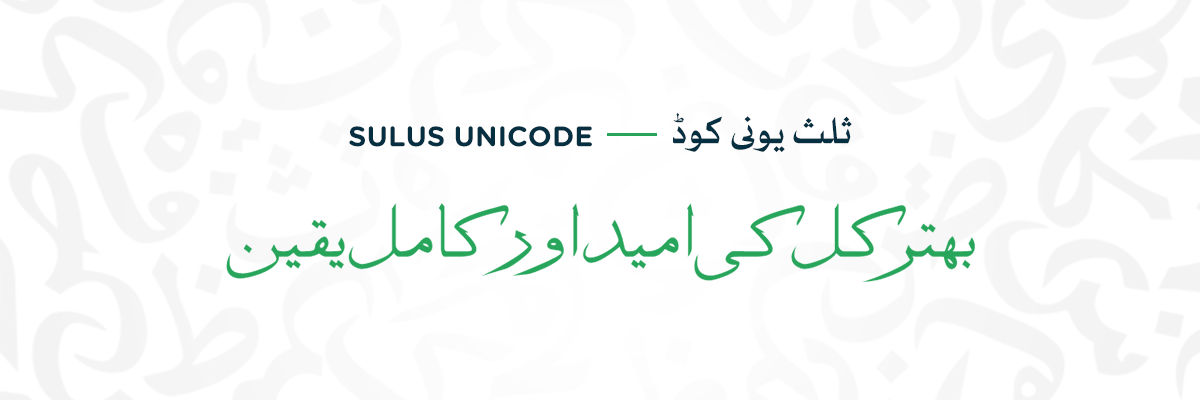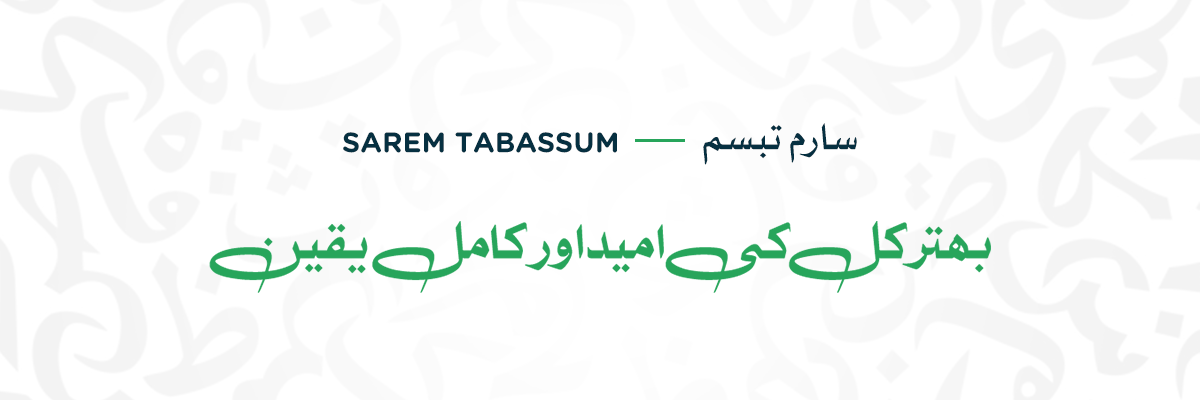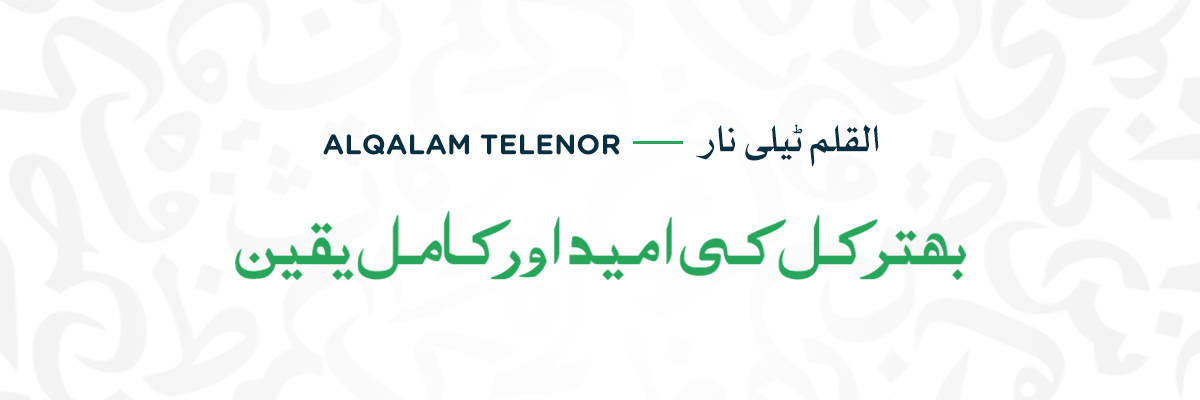
Do you want to improve the readability of your poetry writings and enhance the overall appearance by adding a cultural touch? No worries, we have got you covered. Classical Urdu fonts serve a great part to engage your readers with your writings. The style and size of a font is very important to consider before publishing your poetry writings. Furthermore, the ideal Urdu fonts for poetry differ based on your book’s genre as well as size. Usually, sans-serif fonts with point sizes of ten to twelve are best for majority of the poetry books. Poetry books look more professional and cleaner with a moderate-sized fonts as they involve less writing on every page. Likewise, you can consider any font that you think goes best with the overall essence of your poetry. Also read about our collection of 18 Elegant Urdu Fonts to design sophisticated invitations, posts, documents, and more.
While writing your poetry books, make sure to use those fonts that maintain the elegance of Urdu script. Selection of right fonts leave a huge impact on readers and also decide whether they will engage with your writings or not. To make it easy for you, we have handpicked some classical Urdu fonts as given below so that you can choose one according to your interests and requirements.
| No. | Font Name | Key Features |
|---|---|---|
| 1 | 2 Narenj | Thin font, consistent thickness |
| 2 | Rouqa Unicode | Curved, less angular letterforms, suitable for short texts |
| 3 | Anwar | Thick, symmetrical design, clean |
| 4 | Noorehira | Subtle corners, inconsistent spacing, wide appearance |
| 5 | PDMS_PencilNafees | Design resembling pencil writing, smooth edges and corners |
| 6 | Aldhabi | Flowing cursive style for larger display sizes |
| 7 | A Gem Azad | Irregular font, varying letter spacing |
| 8 | AA Sameer Sagar Nastaleeq | Long curvy edges and contrasting strokes |
| 9 | Sulus Unicode | Graceful strokes for high readability |
| 10 | Sarem Tabassum | Widely spaced letters with sharp edges, curly terminals |
| 11 | AlQalam Tehreeri | Variable stroke thickness, clear letterforms |
| 12 | AlQalam Telenor | Modern, wide, regular style |
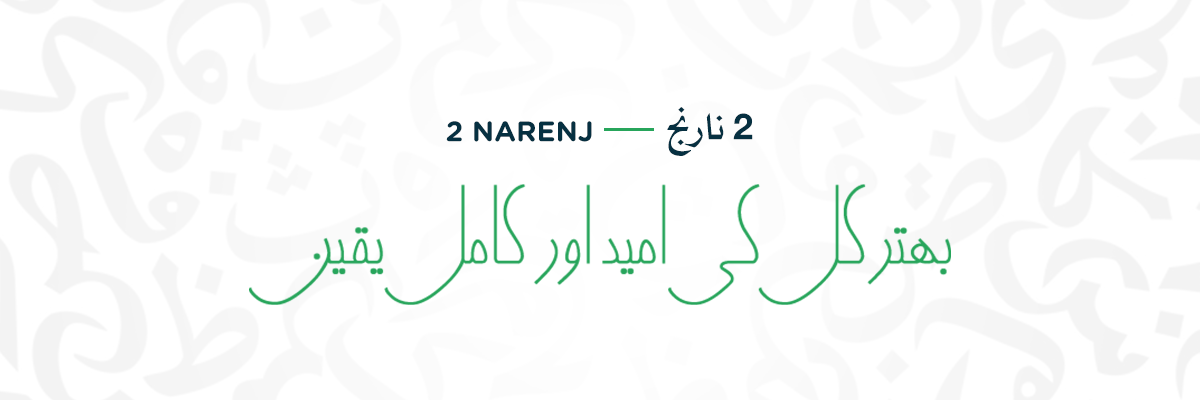
An Arabic font, 2 Narenj was released by Mrtsoft in 2016. It contains elements of Thuluth as well as Naskh scripts with modern impacts, offering a professional look. It is a sleek or thin calligraphy font that maintains a constant thickness throughout its letterforms. Moreover, it can support Latin, Urdu, Arabic, and more, making it an ideal option to use for various poems. With 288 characters and 217 glyph counts, the font provides numerous options for creativity.
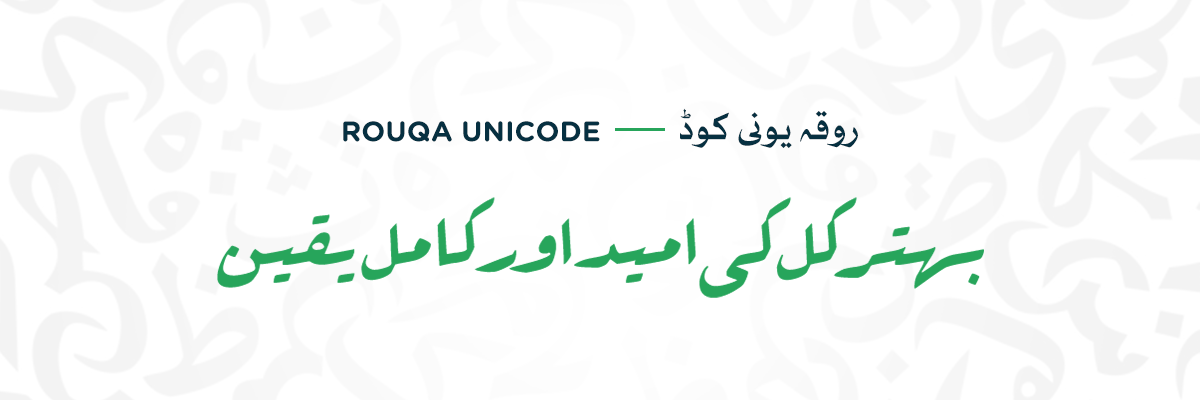
Rouqa Unicode is classical Urdu font with the direct inspiration from Ruqaa script. It was published by Axis Softmedia Pvt. Ltd and designed by Syed Manzar Hasan Zaidi and. It was launched on 10th October 2017 and is inspired by the traditional Ruqaa script. The font has some curved, less angular letterforms, making it best for writing short texts because of its condensed and heavy nature. Also, the filled and bold letterforms of this font add a natural handwriting touch in your poetry writings.
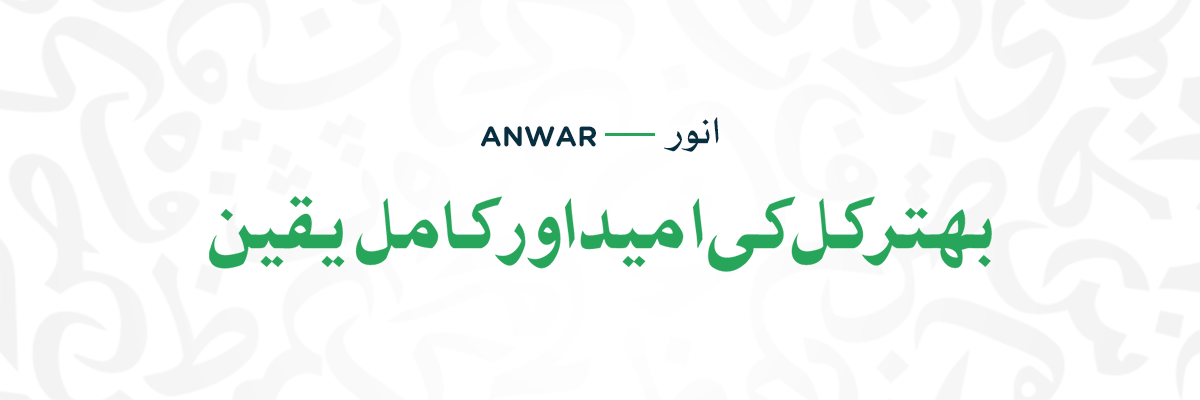
Anwar is also an Arabic font made by Syed Manzar Hasan Zaidi. Inspired by Naskh scripts, the font has a thick and well-aligned design, with modern touches. With glyph count of 497, it guarantees compatibility with many languages, including Arabic, Latin, Urdu, Persian, etc. Due to its stylish pattern, which combines classic Arabic calligraphy with modern elements, it is a good option for longer text blocks in your poems. The letters of this font are even, filled with pointy edges, and curved corners, making it an attractive option for designers.
Noorehira was designed by Abu Saad and is a bold, modern Arabic font. It is a handwriting style font with the direct inspiration from traditional Urdu calligraphy with a modern twist. Launched on 7th October 2017, the font guarantees versatility in your poetry. The unique appearance of this font includes decorative sharp edges, tilted vertical characters, subtle corners, and inconsistent spacing, providing it with an informal and wide appearance.
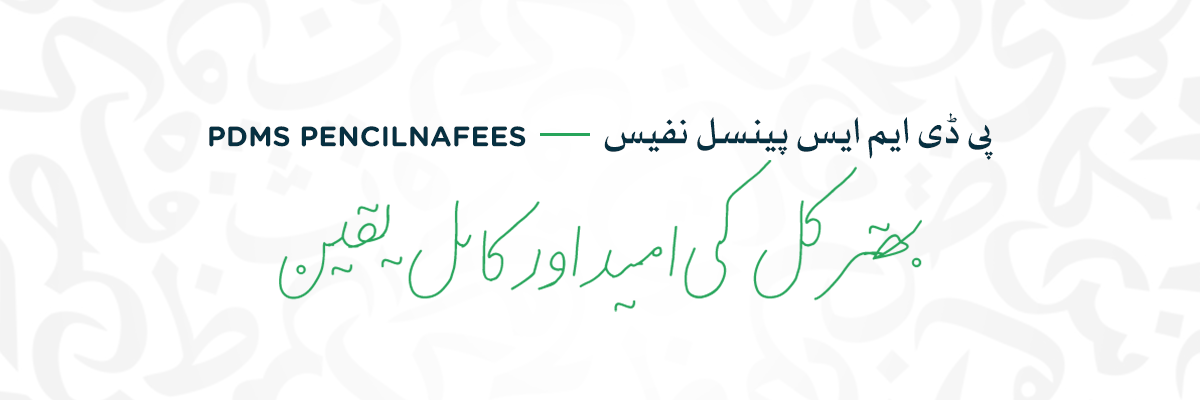
PDMS_PencilNafees is the creation of font designer, Kashif Hisam of 18 Elegant Urdu Fonts. It is a perfect option to give a touch of handwriting to your poetry books. Inspired by the Nastaliq script, it features a distinct design and looks like you have written with a pencil. It is a comparatively thin font with smooth edges and corners. The changing space among the letters and uneven strokes give it a natural appearance.
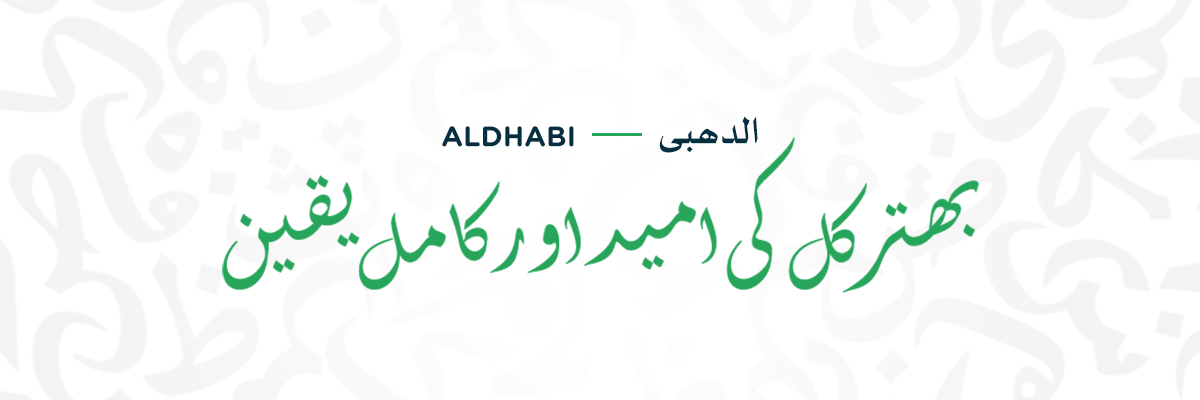
Designed by Microsoft, Aldhabi is a cursive font released in 2014. It is basically perfect for bigger display sizes and features a flowing style. The font has some decorative elements, making it a good option for calligraphy, poetry writing, and other poems. Having 478 letters and symbols and 1148 glyphs, it is modern and supports many languages, like Latin, Urdu, Arabic, and more.
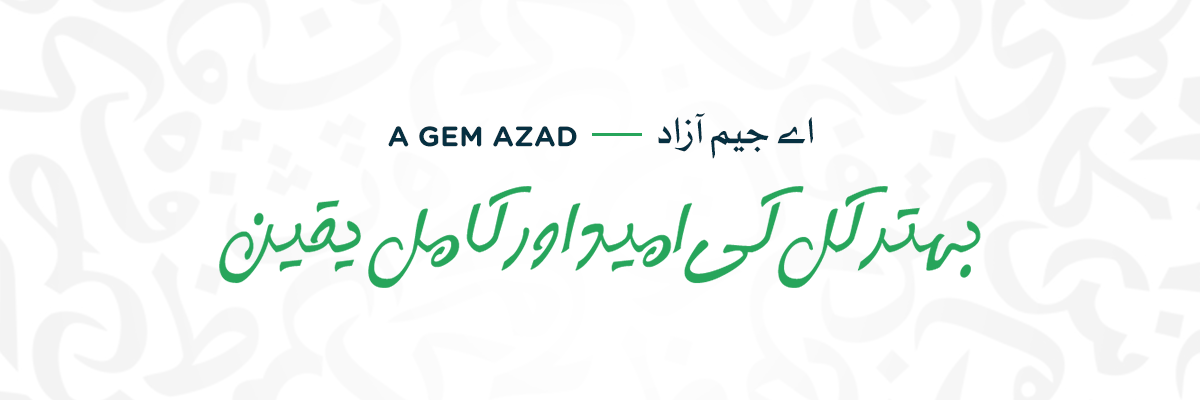
A Gem Azad is also a cursive irregular font and was designed by IrFont.ir. Launched on 20th March 2021, it has 216 glyphs & 294 characters The spacing between the letter is varying, making it irregular and not clean, affecting its readability. Its letters likewise have changing strokes, giving it a handwritten, natural feel. The font is slightly tilted from right to left, making it best to add some creative element in your writings.